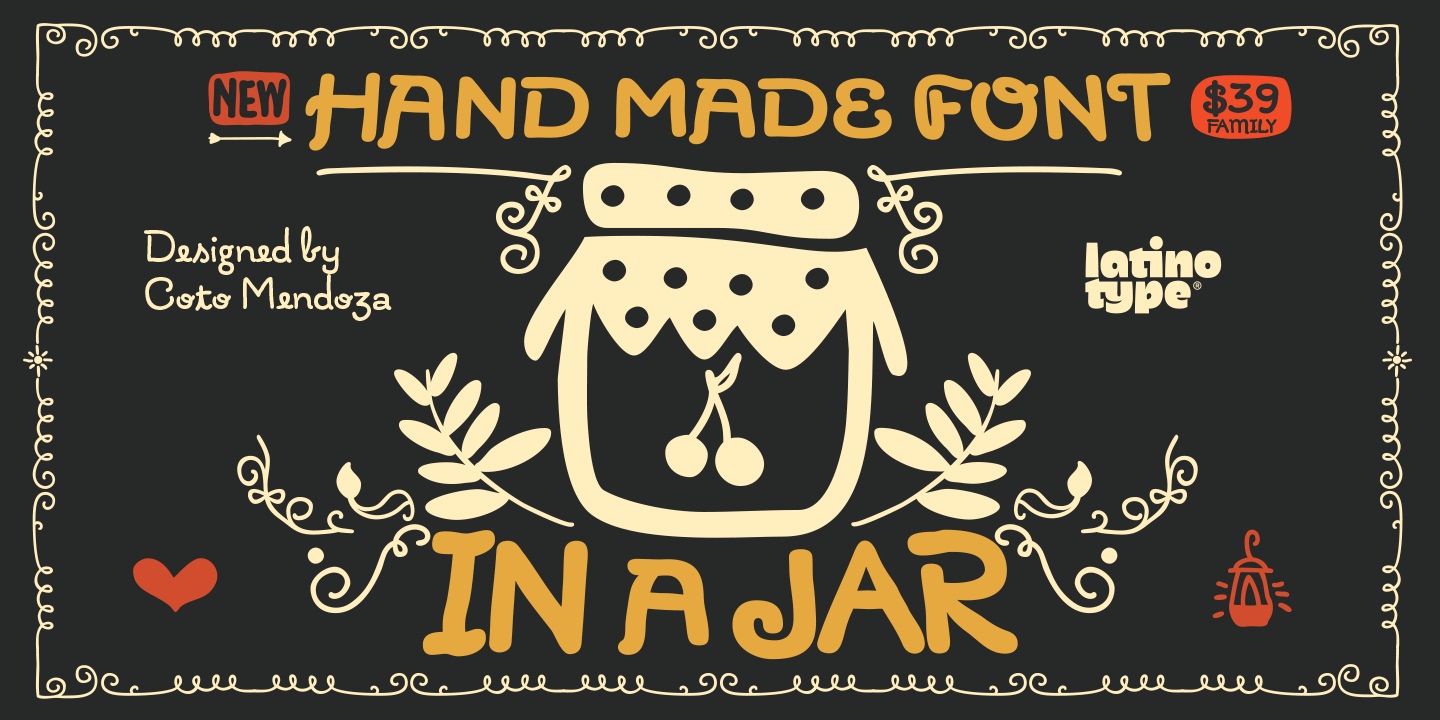
In a Jar Font
In a Jar Font is perfect for artisanal branding, preserved foods packaging, homemade product labels, farmers market signage, organic food design, rustic logos, handcrafted goods, vintage advertising, canning company materials, and wholesome visual communications. This charming typeface excels in both digital and print applications requiring authentic craftsmanship.
In a Jar Font is exciting because it captures the nostalgic charm of homemade preserves with distinctive letterforms that evoke traditional canning and artisanal quality while maintaining excellent readability. Its wholesome character creates memorable brand experiences that resonate with audiences seeking authentic craftsmanship and traditional food preparation.
The In a Jar Font family includes regular, bold, light, italic, rough, smooth, and vintage variants, providing designers with comprehensive typographic options for various design scenarios and artisanal communication requirements.
In a Jar Font embodies the timeless appeal of traditional food preservation, delivering exceptional typography that reflects the authentic craftsmanship and wholesome values associated with homemade preserves and artisanal food production. This distinctive typeface draws inspiration from vintage canning labels, farmhouse kitchens, and traditional preservation methods to create letterforms that communicate authenticity, quality, and nostalgic charm. The font's artisanal character makes it particularly valuable for specialty food producers, farmers markets, organic brands, and traditional craft companies that require typography capable of conveying homemade quality, authentic tradition, and wholesome craftsmanship.
The handcrafted construction of In a Jar Font demonstrates careful attention to traditional design principles, with nostalgic proportions and authentic details that create trustworthy compositions reminiscent of vintage food labels and artisanal packaging. This wholesome approach ensures excellent performance across diverse applications, from product packaging to marketing campaigns where authentic appeal enhances brand credibility and consumer trust. The font's traditional qualities make it especially effective for brands in specialty foods, organic agriculture, artisanal crafts, and heritage products that celebrate traditional methods and authentic quality.
Whether developing artisanal brand identities, creating homemade product communications, or designing traditional marketing materials, In a Jar Font provides the authentic charm needed for communications that inspire trust and celebrate traditional craftsmanship while maintaining professional standards and achieving genuine connection with audiences who value homemade quality and artisanal authenticity.